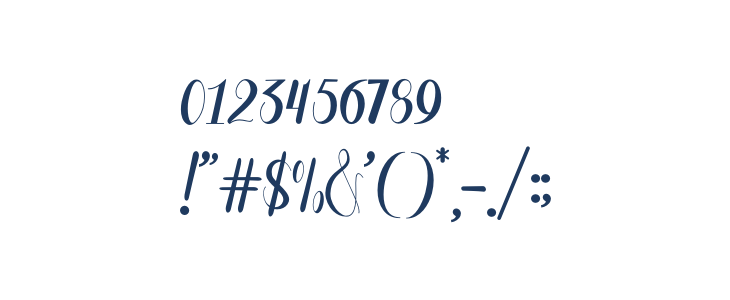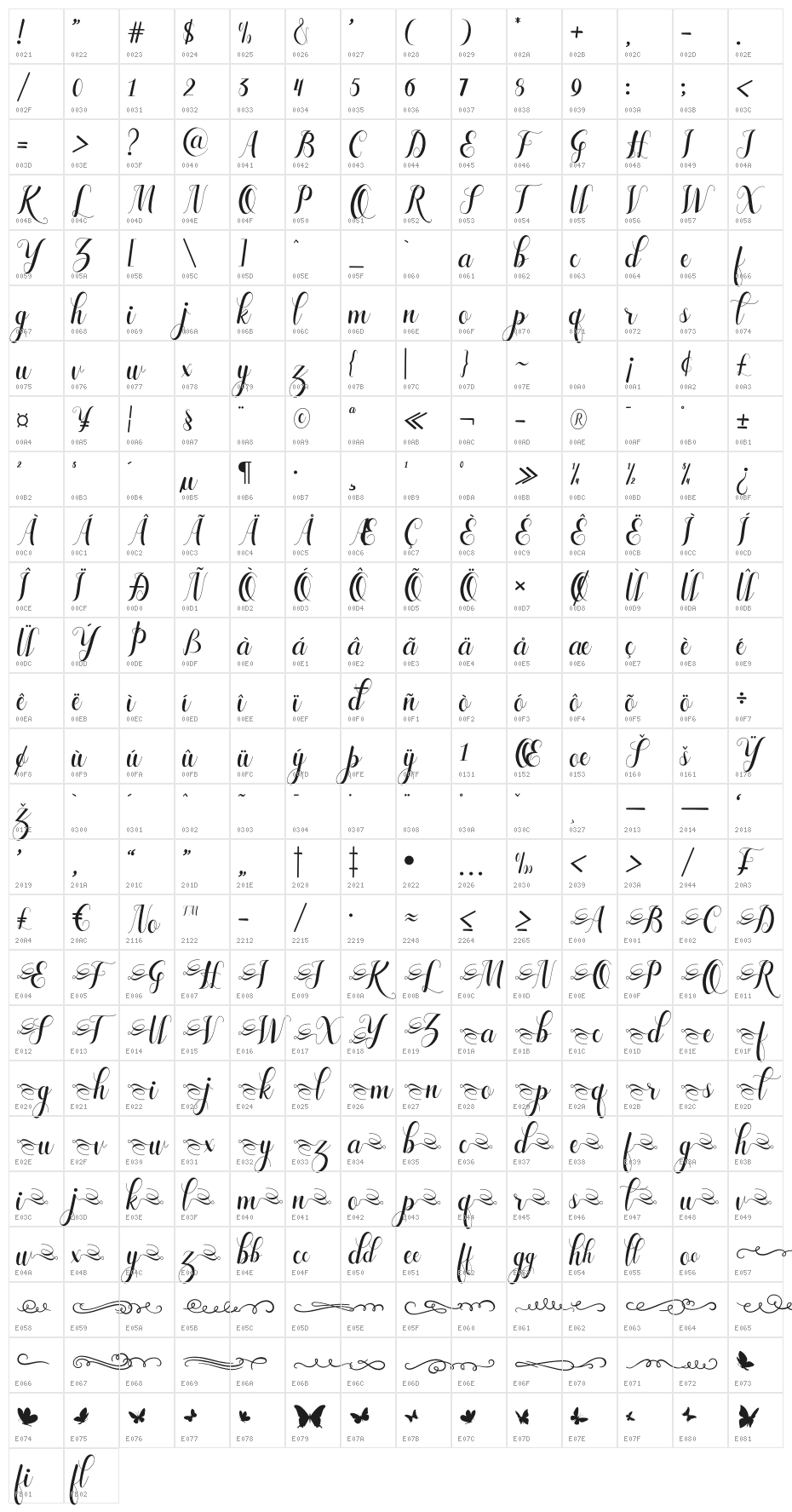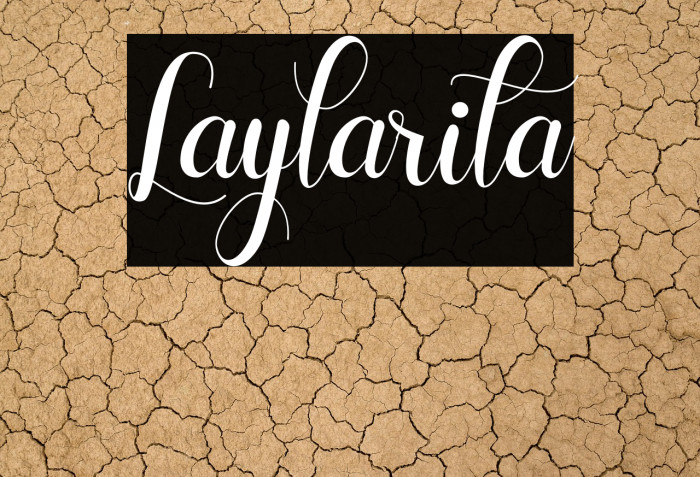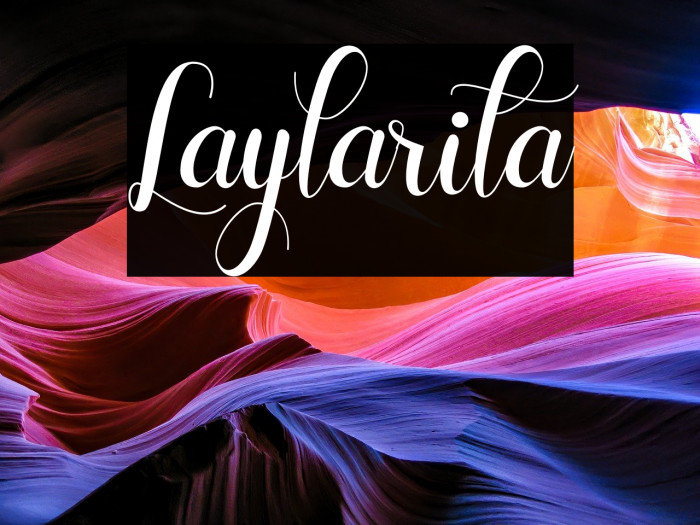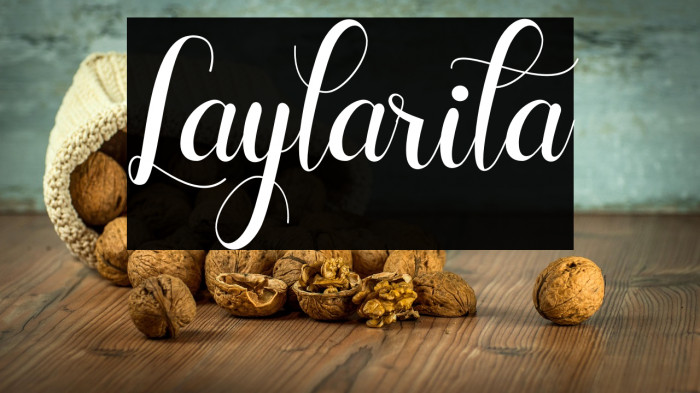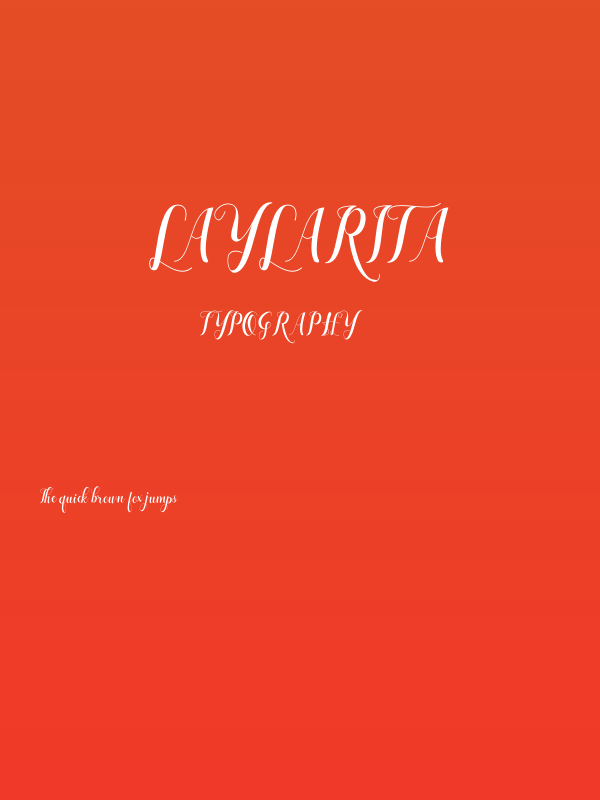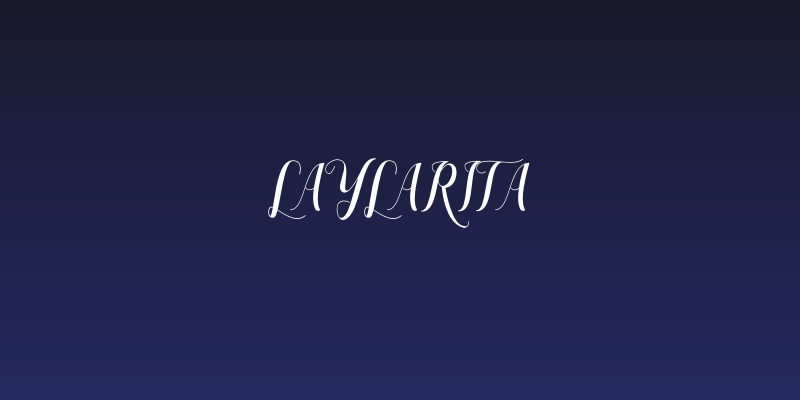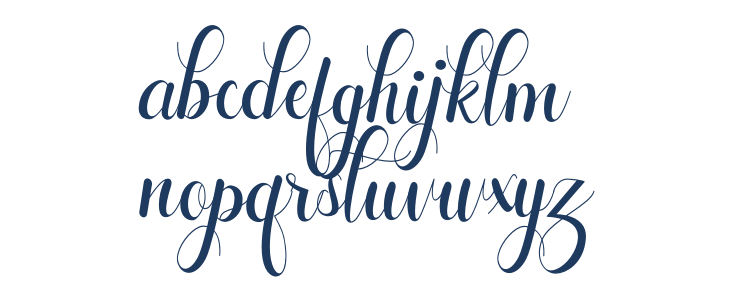
Laylarita Font
Laylarita Description
This elegant script font features flowing, interconnected letterforms with a high degree of flourish and sophistication. The uppercase letters are particularly ornate, with sweeping curves and loops that give a sense of movement and grace. The lowercase letters maintain a consistent style, offering a harmonious blend of readability and decorative flair. The numerals and special characters are designed to complement the overall aesthetic, ensuring a cohesive look across all text elements. This font is ideal for projects that require a touch of elegance and class.
Overall StyleElegant
Use CaseLogos, Invitations, Decorative text
Proposed ProjectsWedding invitations, luxury branding, elegant packaging, and formal event programs.